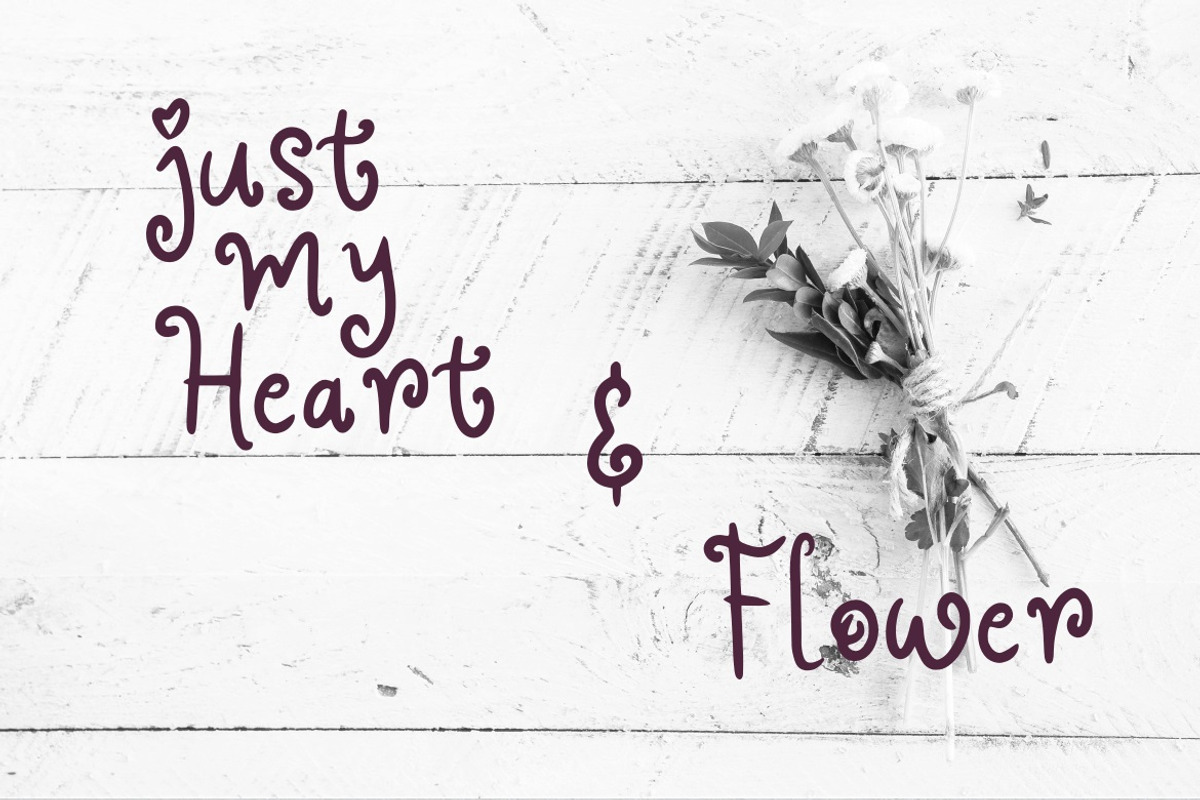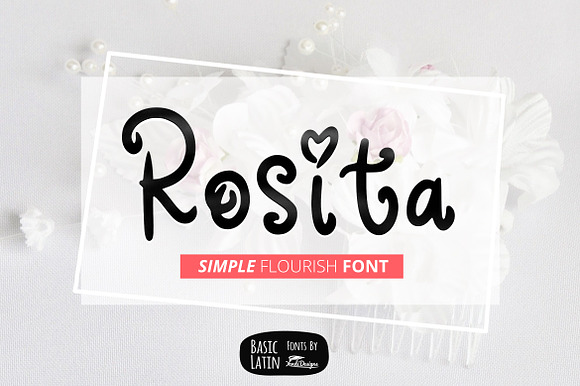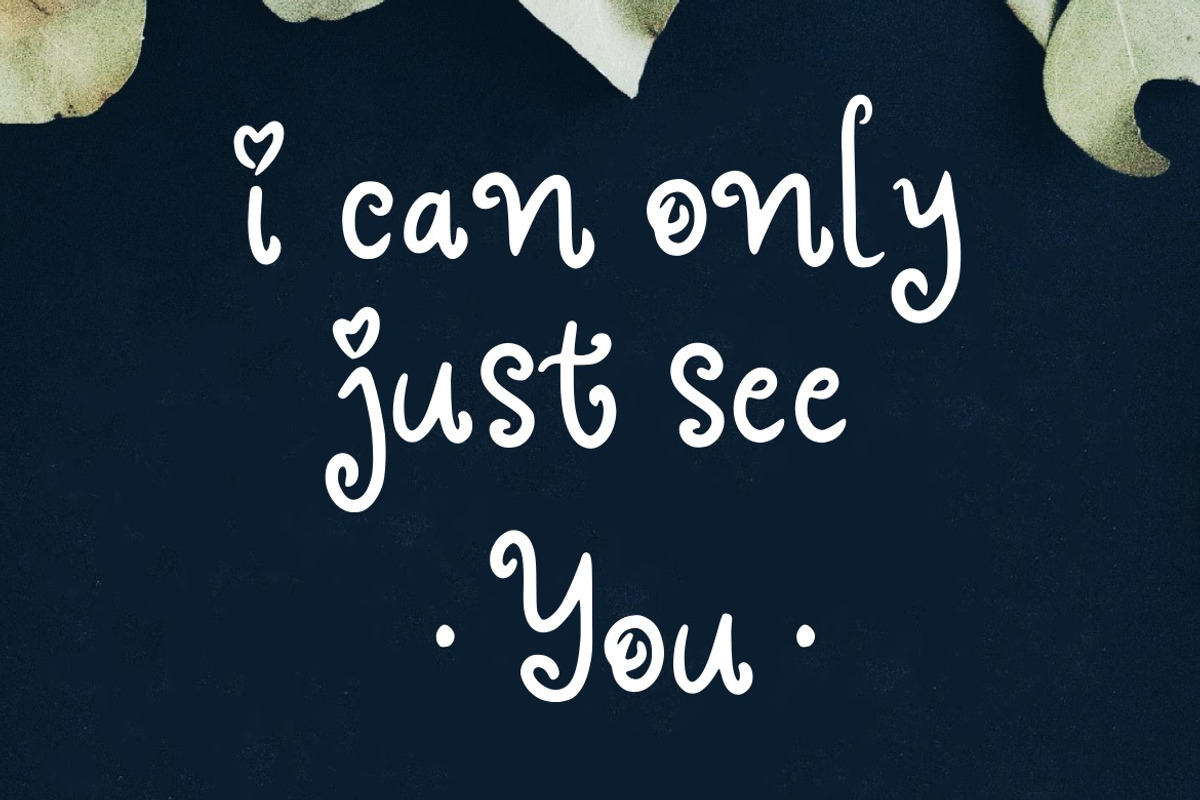
Rosita Flourish Font
Simple and flourish font , suitable for many project , quotes, logo , doodle, heading , title etc.
Basic Latin (Standard English character , number, punctuation)
Why Rosita Flourish Font is worth a look
Rosita Flourish Font by YandiDesigns fits naturally into Branding, posters, packaging, typography.